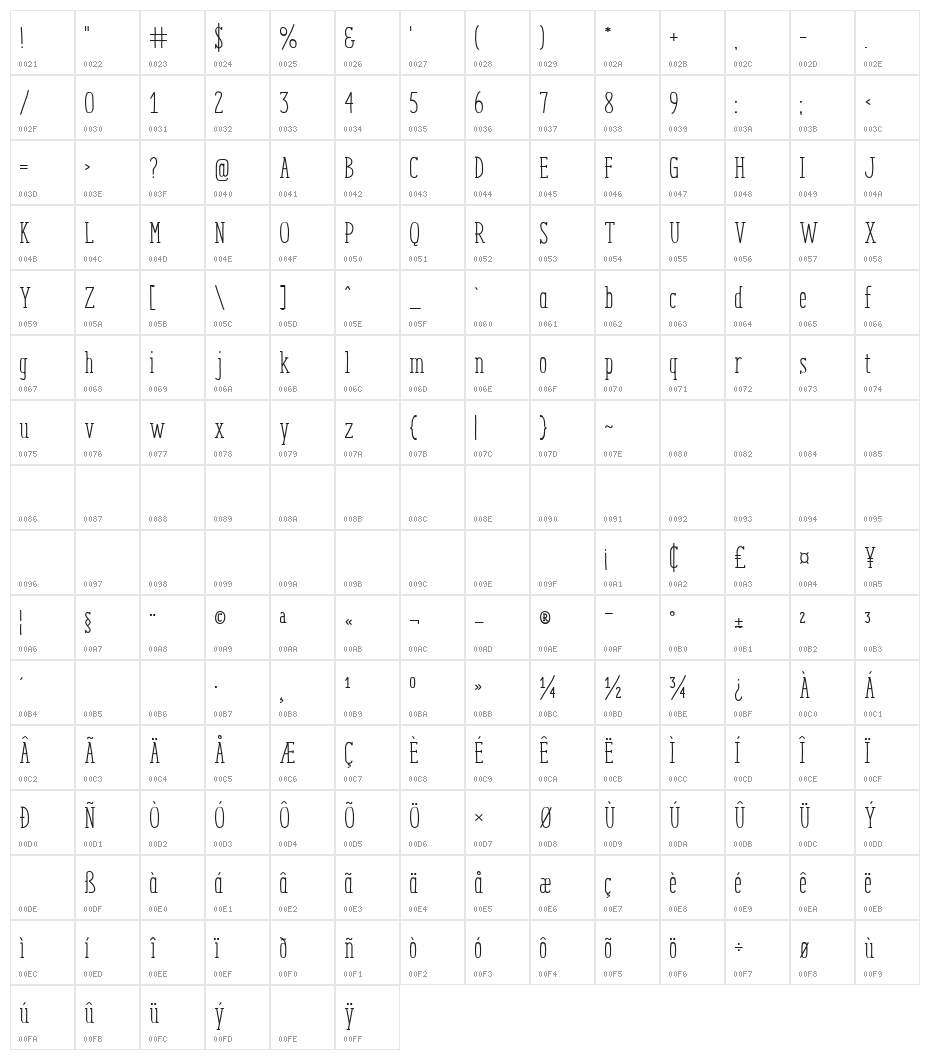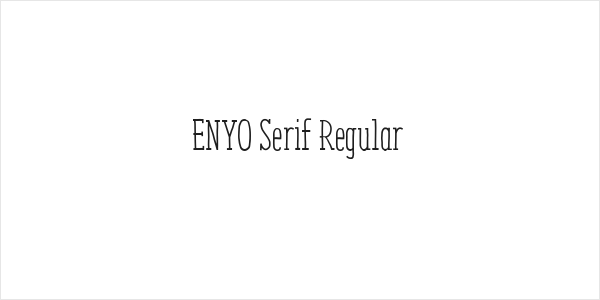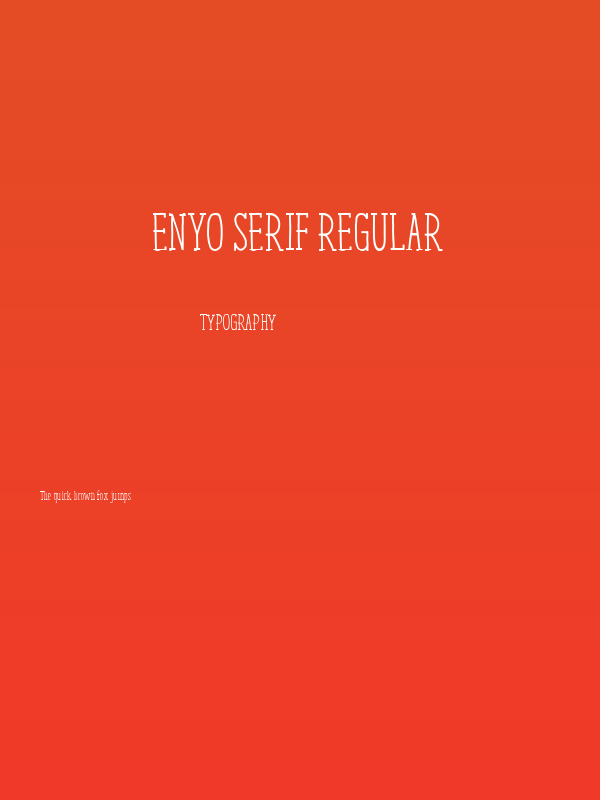
ENYO Serif Regular Font
ENYO Serif Regular Description
This typeface features a classic serif design with a modern twist. The characters are elegantly elongated, providing a sophisticated and refined appearance. The serifs are pronounced yet not overly ornate, lending a sense of balance and readability. The uppercase letters are tall and commanding, while the lowercase letters maintain a consistent flow with slightly rounded edges. The numerals are clear and distinct, ensuring legibility. Special characters are well-integrated, maintaining the overall aesthetic. This font is versatile, suitable for both formal and contemporary applications.
| Proposed Projects | Ideal for editorial design, book covers, branding, and elegant invitations. |